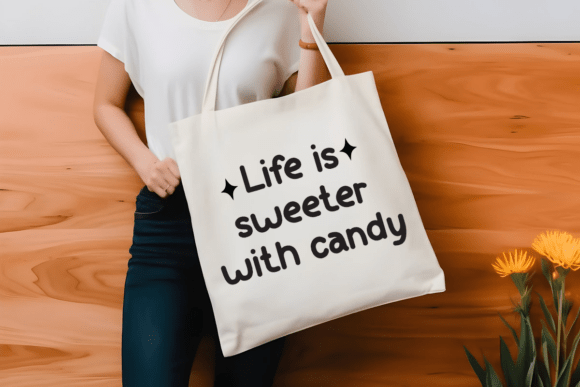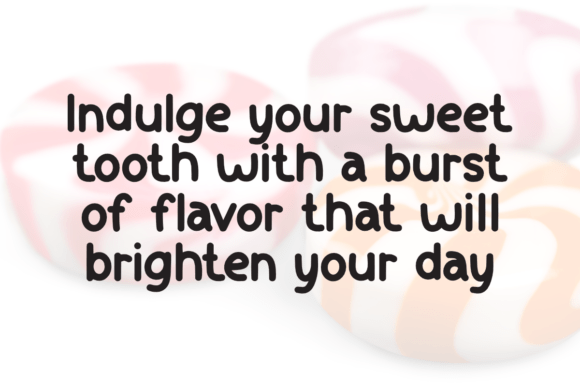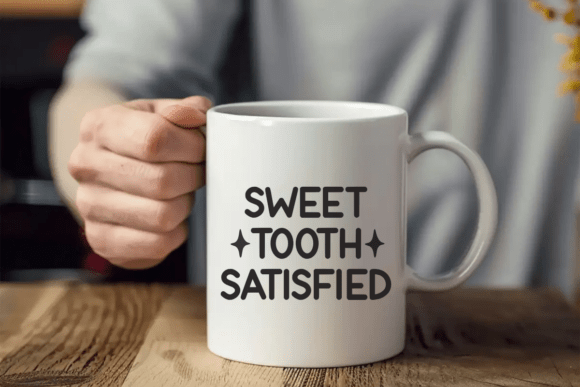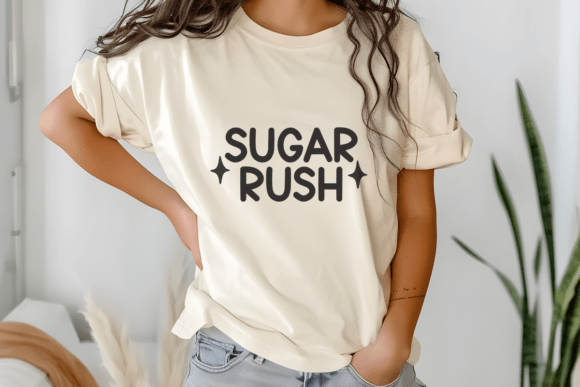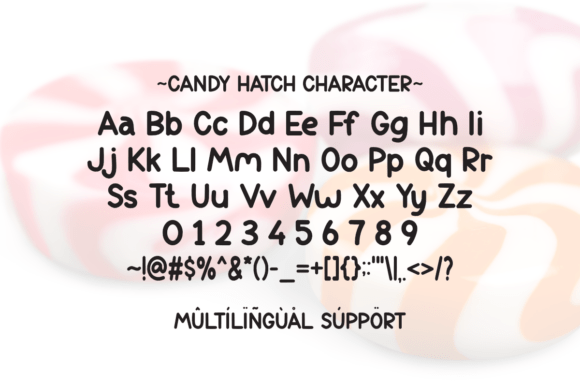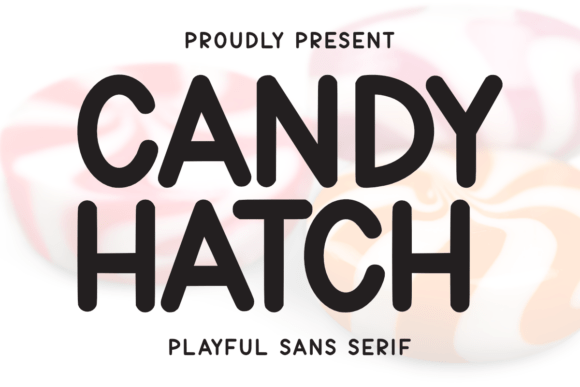
Candy Hatch Font: The Sweetest Addition to Your Design Collection
Are you on the hunt for a font that’s as sweet as it is versatile? Look no further than Candy Hatch, a fun and bouncy sans serif font that’s sure to bring a smile to your face. With its rounded terminals, playful spacing, and quirky personality, Candy Hatch is the perfect addition to any design project that needs a touch of joy and approachability.
The Perfect Font for Kids’ Branding and Beyond
Candy Hatch is a font that’s specifically designed to capture the imagination of kids and adults alike. Its clean lines and cheerful vibe make it an ideal choice for kids’ branding, candy packaging, games, and any other design project that requires a playful and youthful feel. Whether you’re creating a logo, label, or advertisement, Candy Hatch is sure to make your design stand out from the crowd.
What Makes Candy Hatch So Special?
So, what sets Candy Hatch apart from other fonts out there? Here are just a few of its standout features:
- Rounded terminals: Candy Hatch features rounded terminals that give it a soft and approachable feel. This makes it perfect for designs that need to convey a sense of friendliness and warmth.
- Playful spacing: The playful spacing in Candy Hatch adds to its bouncy and energetic vibe. This makes it ideal for designs that need to capture the attention of kids and adults alike.
- Clean lines: Despite its playful personality, Candy Hatch has clean lines that make it easy to read and versatile enough to use in a variety of design projects.
- Quirky personality: Candy Hatch has a quirky personality that’s impossible to ignore. Its unique charm makes it perfect for designs that need to stand out from the crowd.
How to Use Candy Hatch in Your Designs
Candy Hatch is a versatile font that can be used in a variety of design projects. Here are just a few ideas to get you started:
- Kids’ branding: Use Candy Hatch to create a logo or label for a kids’ product or service. Its playful personality and cheerful vibe make it perfect for brands that cater to kids.
- Candy packaging: Add a touch of sweetness to your candy packaging with Candy Hatch. Its rounded terminals and playful spacing make it perfect for labels and packaging that need to stand out on store shelves.
- Games: Candy Hatch is a great font to use in games, especially those designed for kids. Its clean lines and quirky personality make it easy to read and fun to play with.
- Advertising: Use Candy Hatch in your advertising materials to add a touch of whimsy and fun. Its playful personality and cheerful vibe make it perfect for ads that need to capture the attention of kids and adults alike.
Tips and Tricks for Getting the Most Out of Candy Hatch
Here are a few tips and tricks to help you get the most out of Candy Hatch:
- Use it with bright colors: Candy Hatch looks best with bright, bold colors that match its playful personality. Try pairing it with colors like pink, blue, and yellow to create a design that’s sure to pop.
- Experiment with different sizes: Candy Hatch is a versatile font that can be used in a variety of sizes. Experiment with different sizes to find the one that works best for your design.
- Pair it with other fonts: Candy Hatch can be paired with other fonts to create a unique and interesting design. Try pairing it with a serif font for a contrasting look or with another sans serif font for a cohesive feel.
Candy Hatch is a fun and bouncy sans serif font that’s perfect for designers and crafters who need to add a touch of joy and approachability to their designs. With its rounded terminals, playful spacing, and quirky personality, Candy Hatch is sure to make your design stand out from the crowd. Whether you’re creating a logo, label, or advertisement, Candy Hatch is the perfect font to use. So why wait? Download Candy Hatch today and start creating sweet designs that will capture the hearts of kids and adults alike!